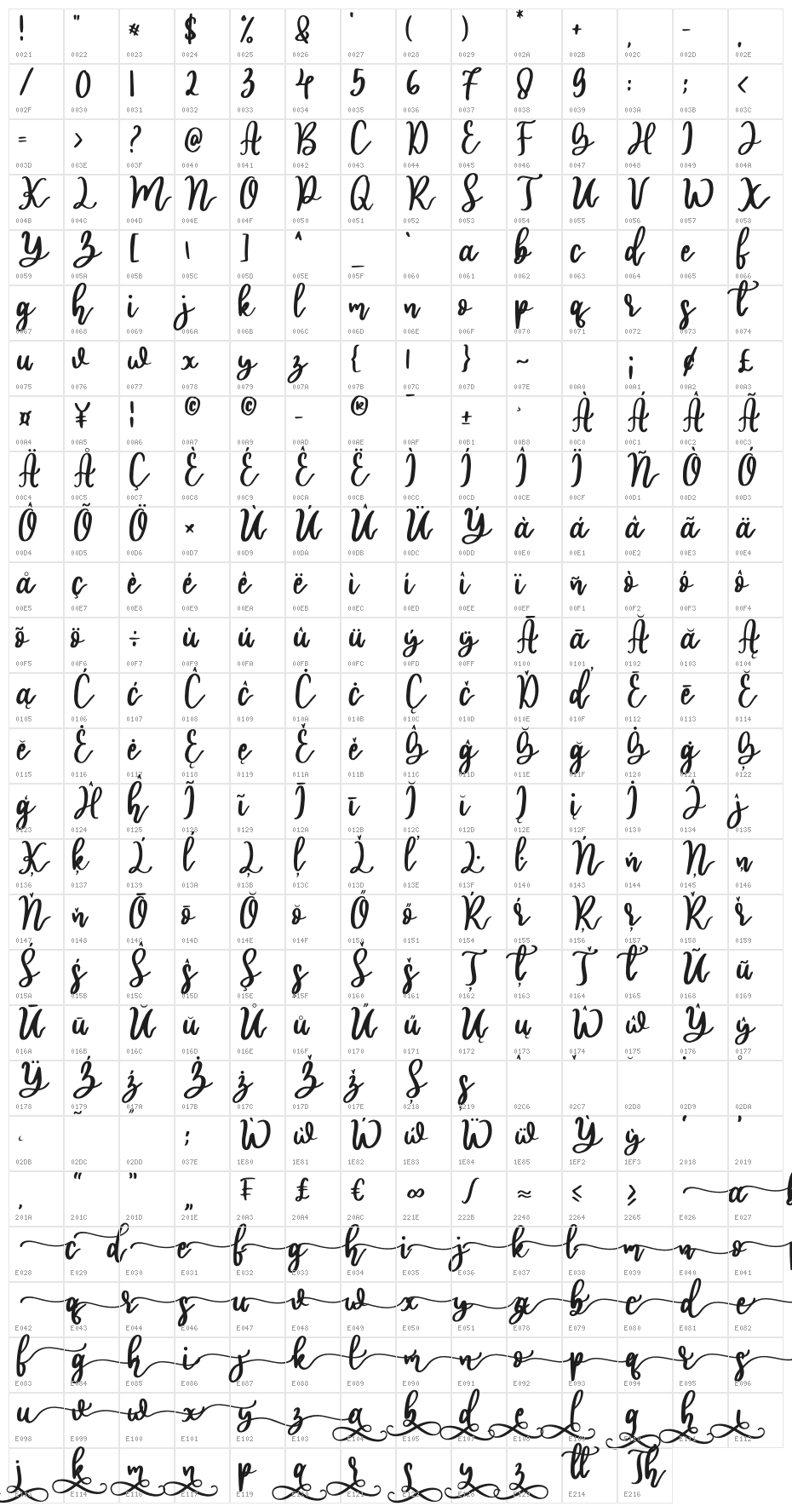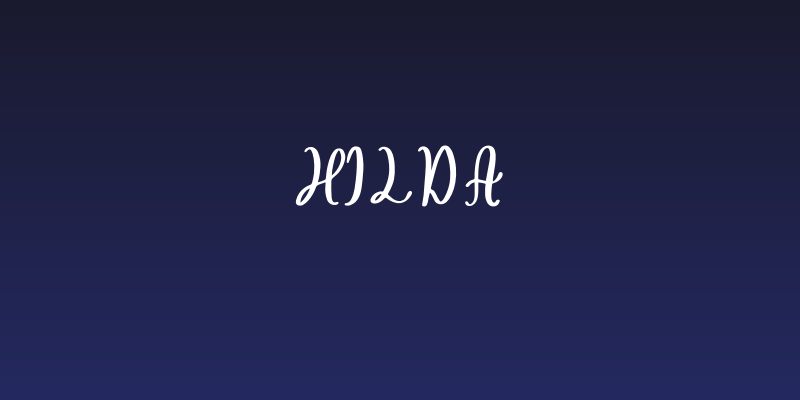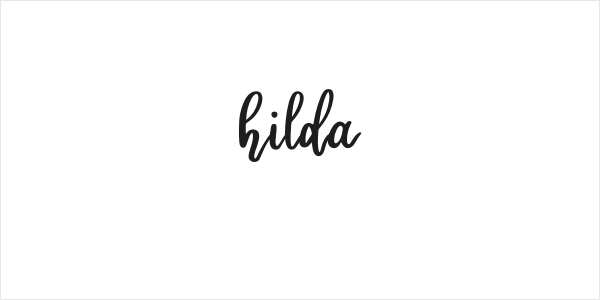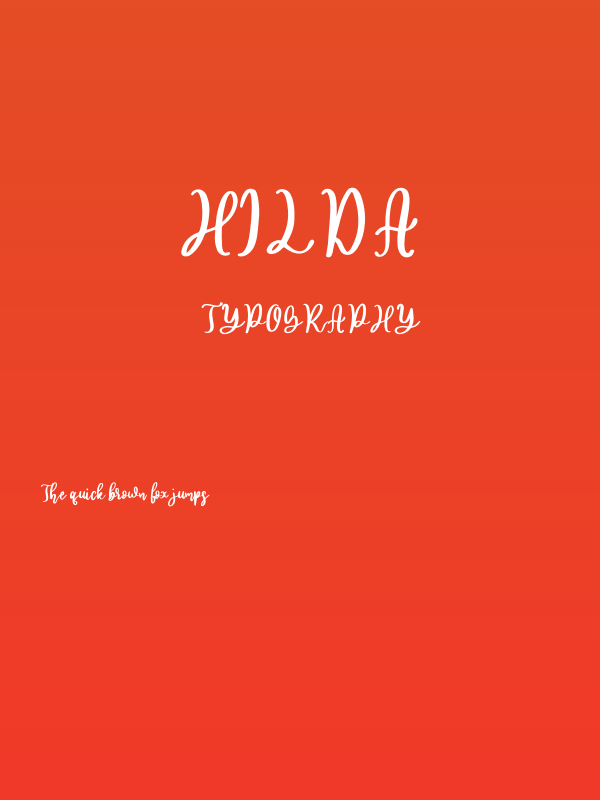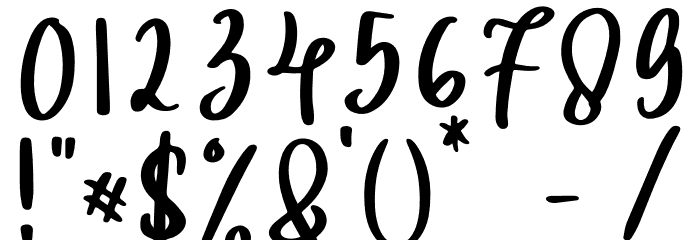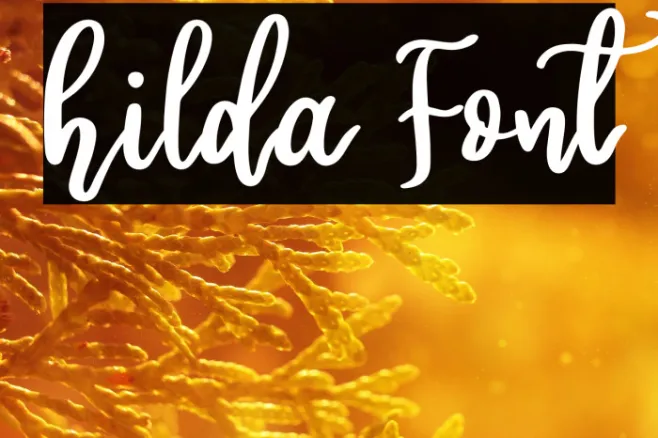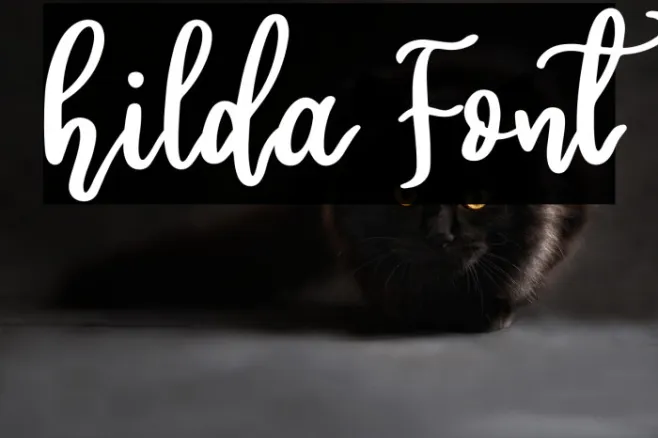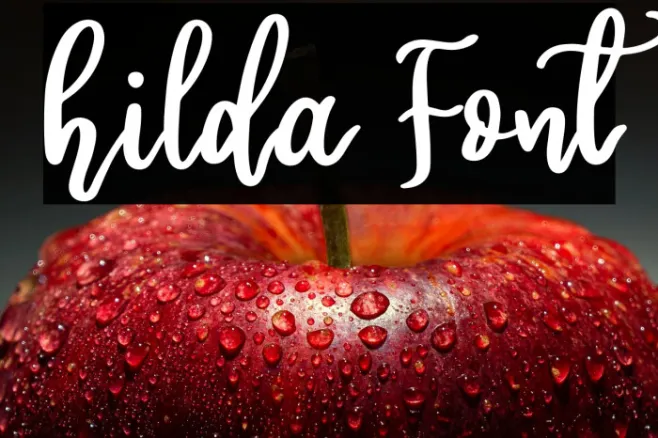
hilda Font
hilda Description
This font features a flowing, cursive style with a handwritten appearance. The uppercase letters are elegant and slightly slanted, giving a sense of movement and fluidity. The lowercase letters maintain a consistent style, with loops and curves that enhance its script-like quality. Numbers and special characters are designed to match the overall aesthetic, providing a cohesive look. The strokes are bold, with medium contrast, making it suitable for attention-grabbing designs. Its playful yet sophisticated appearance makes it versatile for various creative projects.